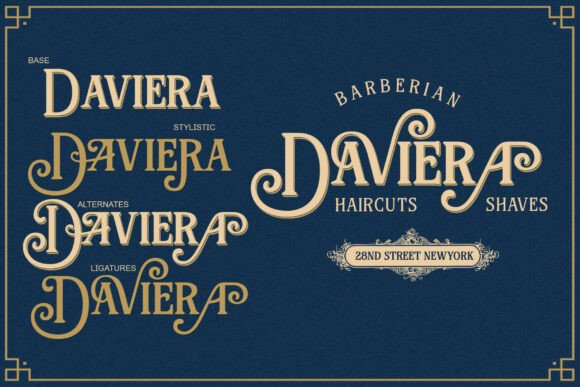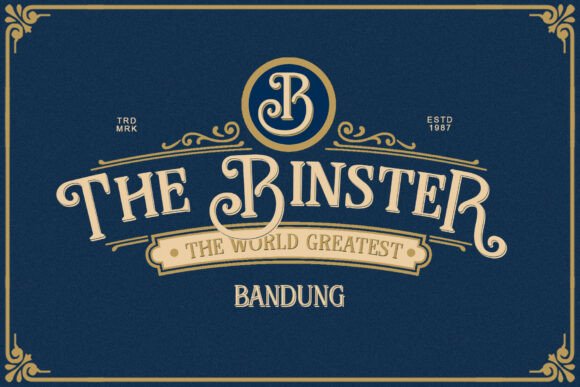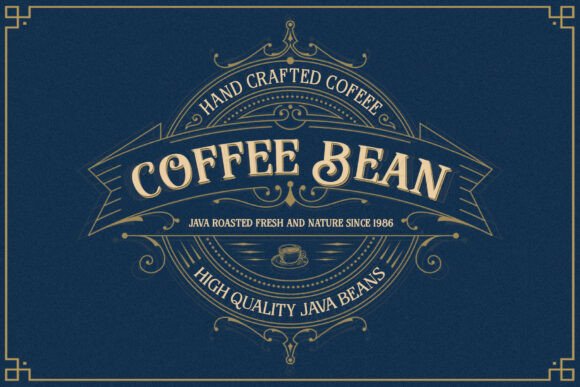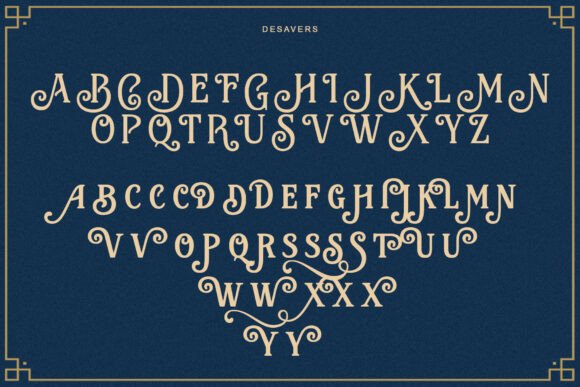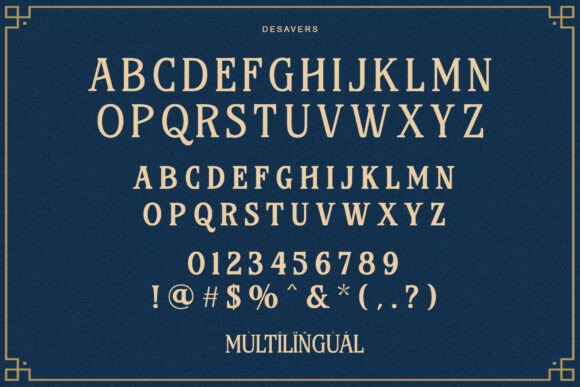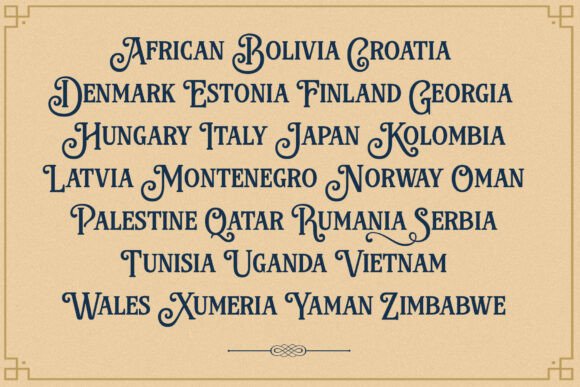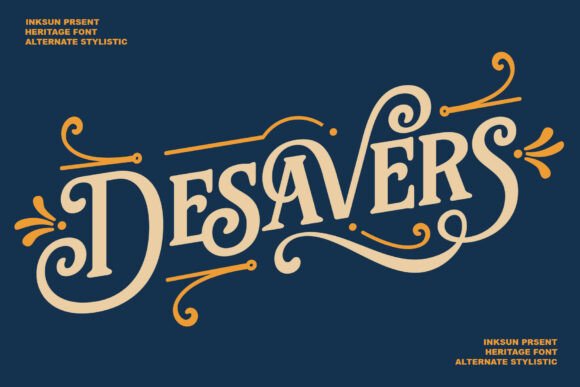
Introducing Desavers Font: A Timeless Serif Typeface for the Modern Era
In the world of typography, few fonts manage to strike a balance between classic elegance and modern sophistication. Desavers, a heritage-inspired serif typeface, is one such exceptional font that seamlessly blends vintage charm with contemporary flair. With its bold, high-contrast strokes and artistic alternate stylistic features, Desavers exudes a sense of premium craftsmanship and professional grace, making it an ideal choice for designers and crafters seeking to elevate their projects.
Aesthetic Appeal: A Perfect Blend of Classic and Modern
Desavers boasts a distinctive aesthetic that is both nostalgic and cutting-edge. Its bold, high-contrast strokes lend a sense of drama and sophistication, while its exceptionally artistic alternate stylistic features provide a touch of elegance and refinement. The font’s sweeping curves and dramatic flourishes add a high-end, bespoke feel, perfect for contemporary branding and design projects.
Key Features: A Versatile Font for Diverse Applications
Desavers is a versatile font designed to cater to a wide range of projects, including:
- Books and magazines: Its classic serif design makes it an excellent choice for print publications.
- Logo and branding: Desavers’ sophisticated aesthetic lends itself perfectly to logo design and brand identity.
- Photography: The font’s elegant curves and flourishes make it an excellent choice for photo captions and quotes.
- Blog headers: Add a touch of sophistication to your blog with Desavers.
- Posters and advertisements: The font’s bold, high-contrast strokes make it ideal for eye-catching posters and ads.
Technical Features: A Comprehensive Font Package
The Desavers font package includes a range of technical features that make it easy to use and versatile:
- Uppercase and lowercase letters
- Numerals and functional characters
- Multilingual support
- Stylistic alternates for added typographic flexibility
Why Choose Desavers?
Desavers offers a unique combination of classic elegance and modern sophistication, making it an excellent choice for designers and crafters seeking to create high-end designs. Its versatility, technical features, and aesthetic appeal make it an ideal font for a wide range of projects.
Whether you’re a professional designer or a crafty DIY enthusiast, Desavers is a font that will help you elevate your designs and create something truly special. With its timeless aesthetic and comprehensive feature set, Desavers is sure to become a staple in your font collection.
In conclusion, Desavers is a sophisticated heritage-inspired serif typeface that offers a perfect blend of classic vintage aesthetic and modern elegance. Its bold, high-contrast strokes, artistic alternate stylistic features, and comprehensive technical features make it an ideal choice for designers and crafters seeking to create high-end designs. Whether you’re working on a book, magazine, logo, or branding project, Desavers is a font that will help you achieve your creative vision.